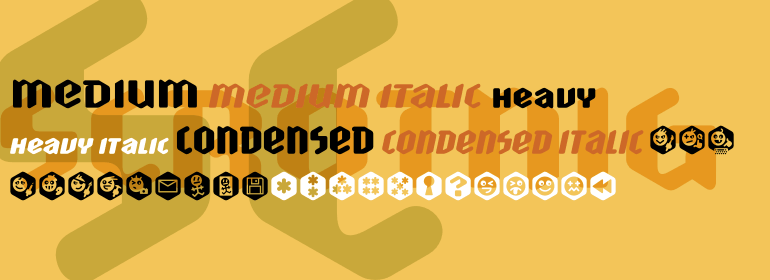
Scrotnig
Scrotnig is a futuristic display sans with a compact, geometric build and a distinctly industrial edge. Its angular forms, sharp terminals, and high x-height give it a bold, technical voice, while the rounded corners and modular construction keep the look controlled and contemporary rather than cold.
The family includes 8 styles: Medium, Heavy, and Condensed cuts with matching italics, plus two Hexes fonts for added pictogram-style graphics. That mix makes it especially useful for signage, game UI, tech-driven branding, sporty identities, posters, and other display work that benefits from a sharp, sci-fi tone.
Designed by Device, this family balances heavy presence with a clean monoline feel, making it a strong choice when you want typography that reads as modern, stylized, and confidently engineered.